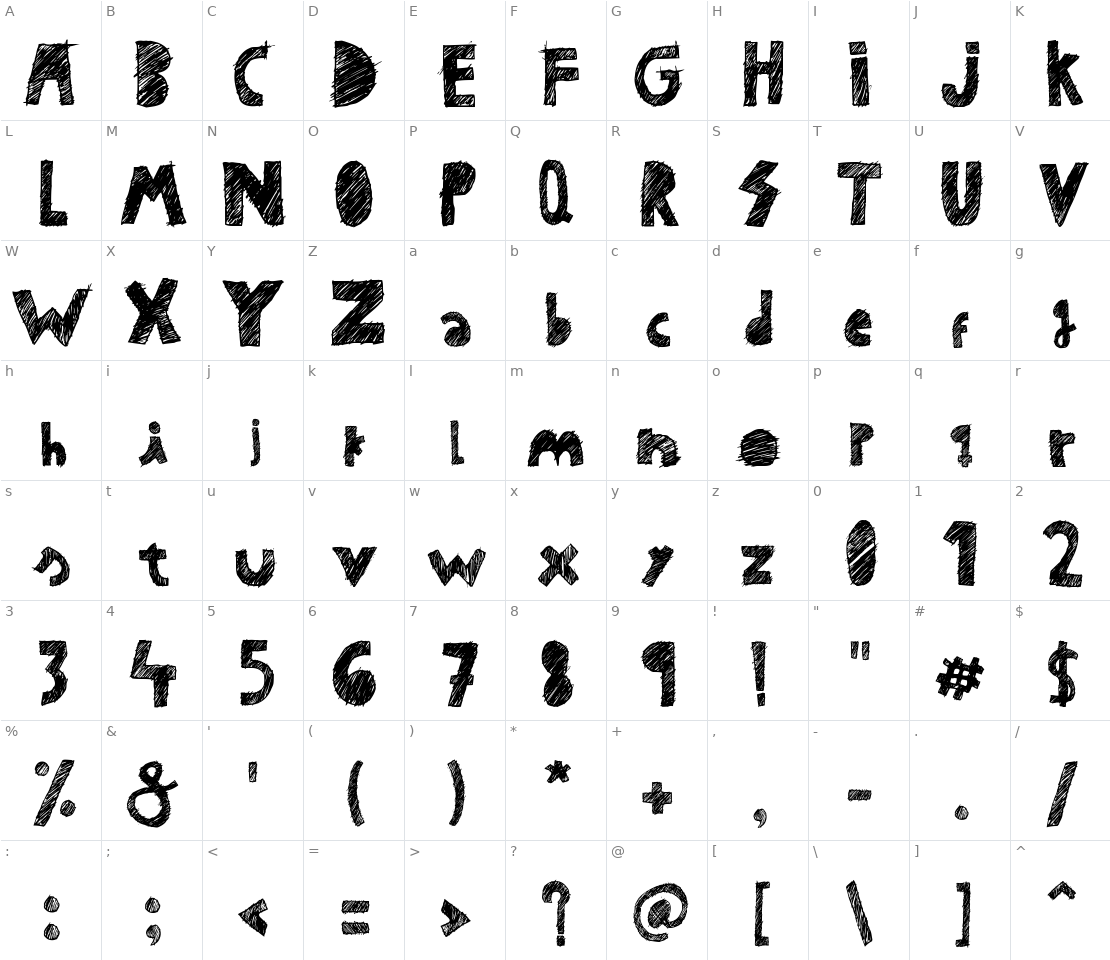
Bolígrafo
Bolígrafo feels like actual ballpoint pen scribbling, with the kind of rough, sketchy strokes you'd find in the margins of a notebook. Woodcutter captured that restless, doodled-in-class energy, where every letter carries visible texture and none of them sit perfectly on the baseline. It's a display face with real personality, good for headlines, posters, or packaging where you want something that reads as genuinely handmade and a little unruly.